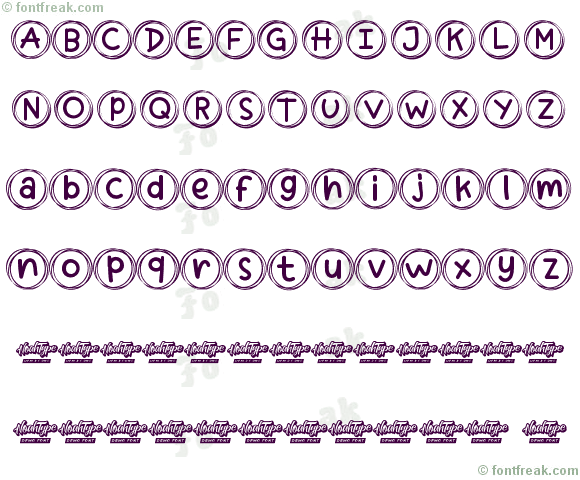
Cute Decor Demo
Cute Decor Demo by Noah Type is a charming decorative font that stands out with its playful and whimsical design. This font falls into the decorative category, making it an excellent choice for projects that require a touch of personality and uniqueness. The visual characteristics of the Cute Decor Demo font include rounded, bold strokes that convey warmth and friendliness. The consistent stroke weight and circular forms create an inviting aesthetic, while the subtle decorative elements add an extra layer of charm without overwhelming the text.
This font is particularly well-suited for a variety of creative applications. It shines in wedding invitations, where its lightheartedness can reflect the joyous occasion. Additionally, it is perfect for children’s book covers, helping to capture the attention of young readers with its fun and approachable design. Cute Decor Demo can also enhance restaurant menus, especially for eateries with a casual vibe, and is ideal for promotional materials aimed at family-friendly events. Graphic designers, small business owners, and content creators will find this font an invaluable asset for their projects, thanks to its versatility and appeal.
In today’s design landscape, finding a font that combines both aesthetic appeal and functionality can be challenging. The Cute Decor Demo font free download offers a unique opportunity for creatives to incorporate a visually engaging typeface into their work without the constraints of a commercial license. Its distinct characteristics and cheerful demeanor set it apart, making it a delightful choice for anyone looking to infuse their projects with a sense of playfulness and creativity. Whether you're crafting invitations, posters, or branding materials, this font is sure to leave a lasting impression.